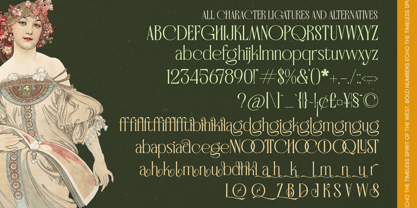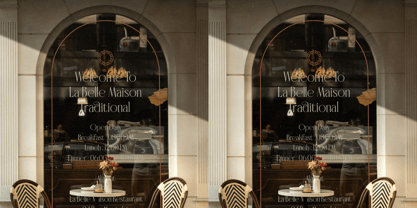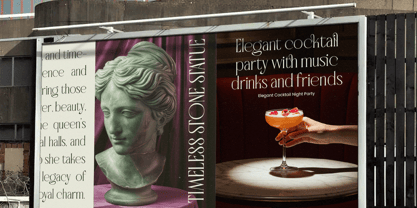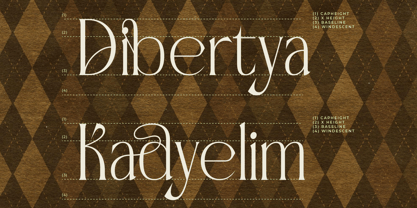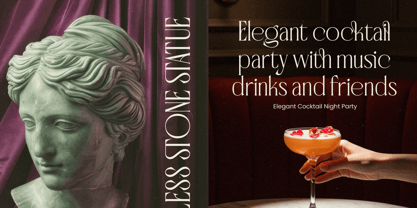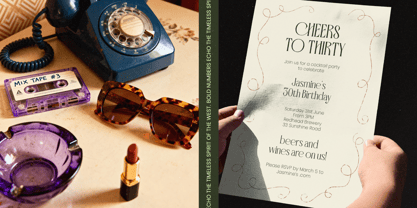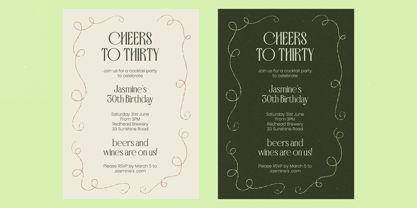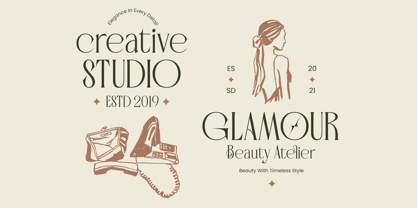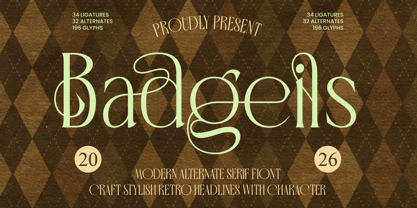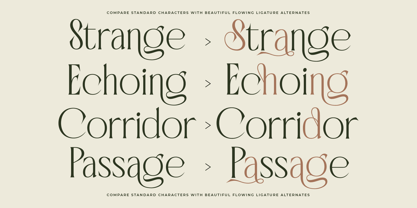
Badgeils
by Timelesstype Studio
The Badgeils Font Family was designed by Heru Utama Putra and published by Timelesstype Studio. Badgeils contains 2 styles and family package options. More about this family
Badgeils is a modern alternate serif font designed with elegant curves and expressive letterforms. This typeface blends classic serif structure with contemporary decorative elements, creating a distinctive look that stands out in headlines and branding designs. The font features stylish ligatures and alternates that allow designers to create unique and visually engaging typography. Its flowing strokes and refined serif shapes give it a sophisticated retro character while maintaining a modern aesthetic. Badgeils works beautifully for display purposes where personality and visual impact are important. The balanced proportions and decorative details make it suitable for a wide range of creative applications, from branding and packaging to editorial layouts and poster design.